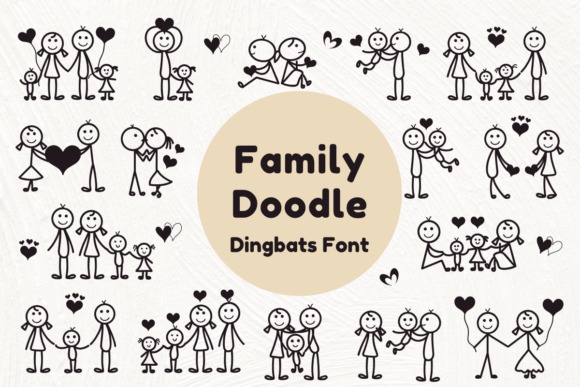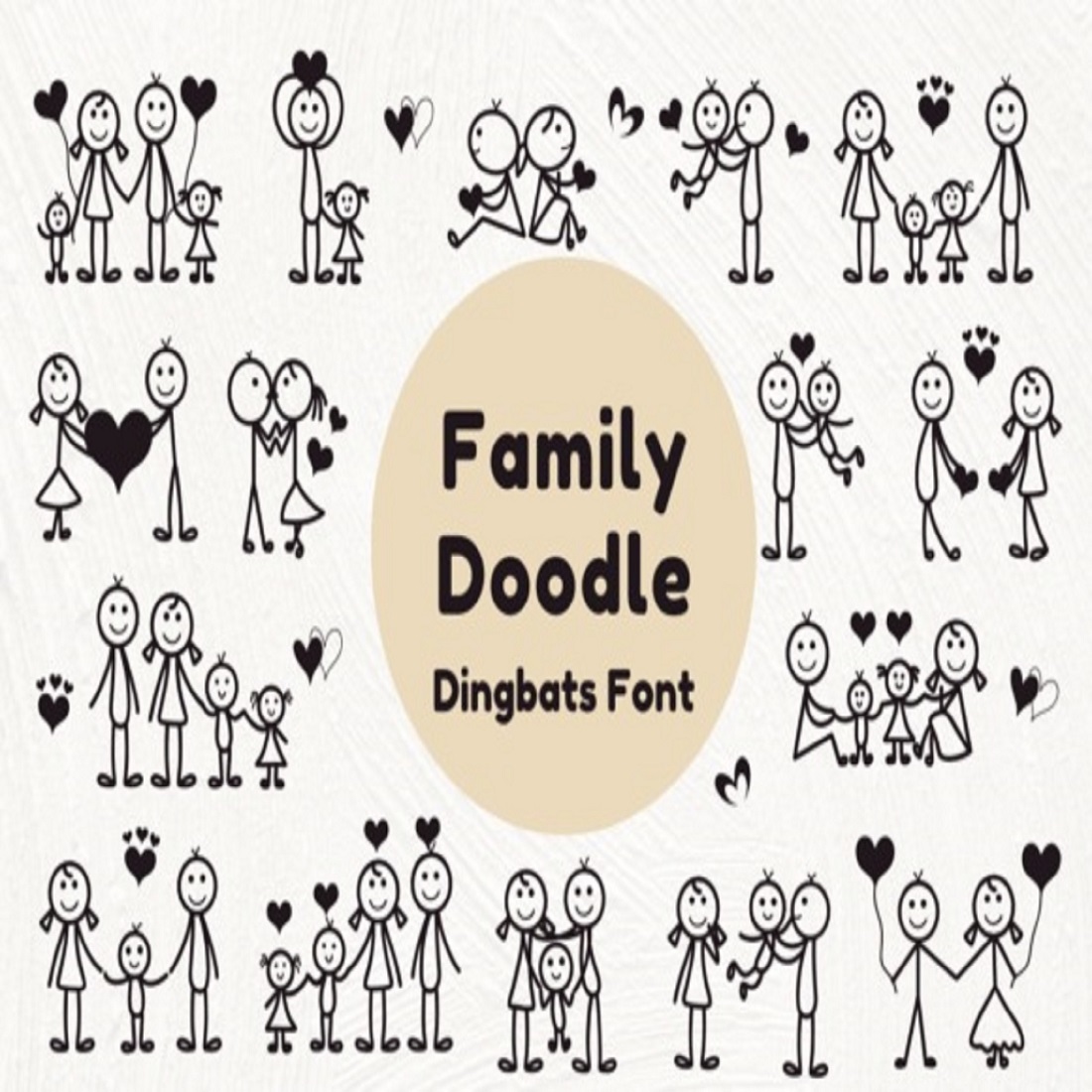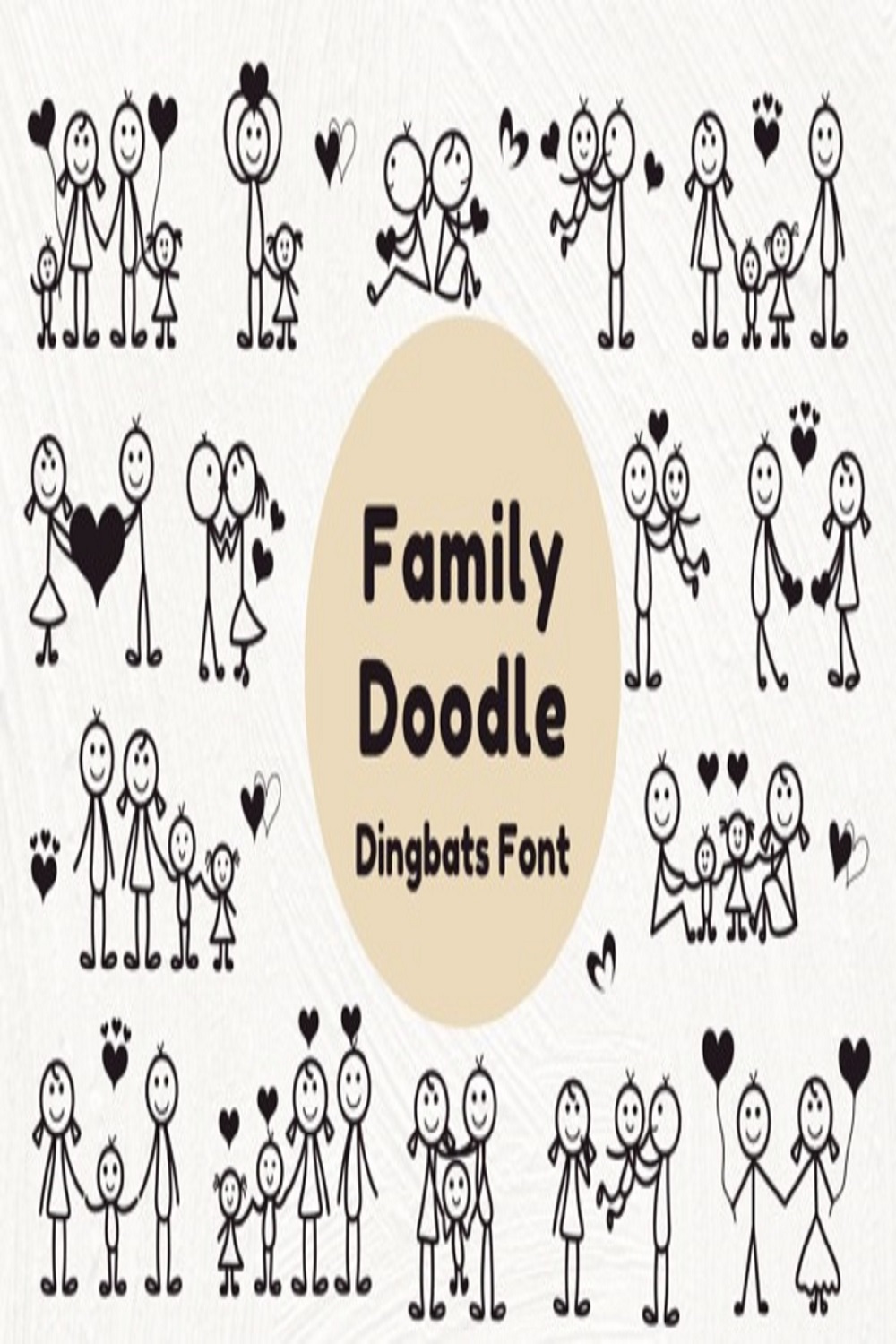
Celebrate love, family, and connection with the charming Family Doodle Dingbats Font! Featuring adorable stick figure illustrations of families in heartwarming poses, this font is perfect for scrapbooking, cards, kid-friendly designs, and DIY projects. Add a whimsical, personal touch to your creative work with these playful family-themed doodles.